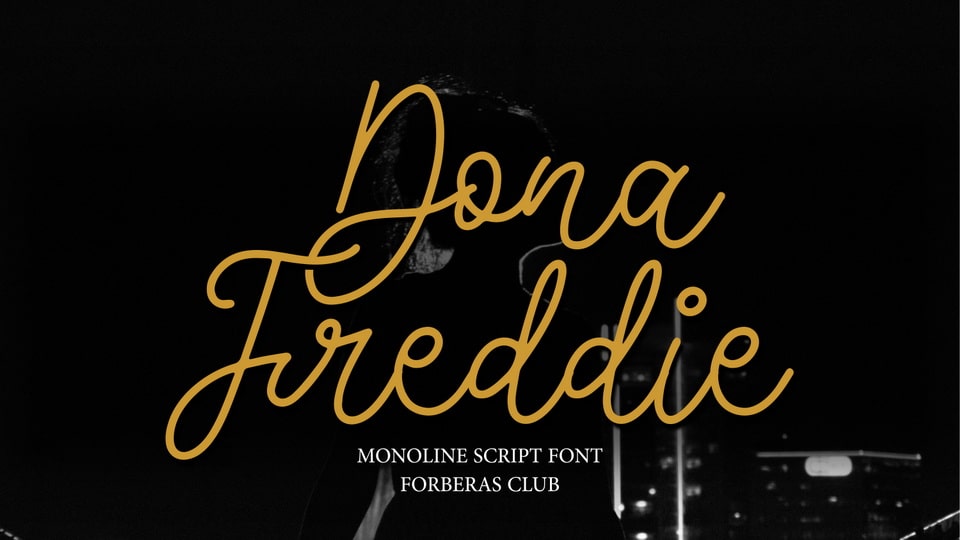
Download Dona Freddie font, a casual script typeface inspired by a natural handwriting. Dona Freddie font is especially designed for crafts, quotes and personal projects.